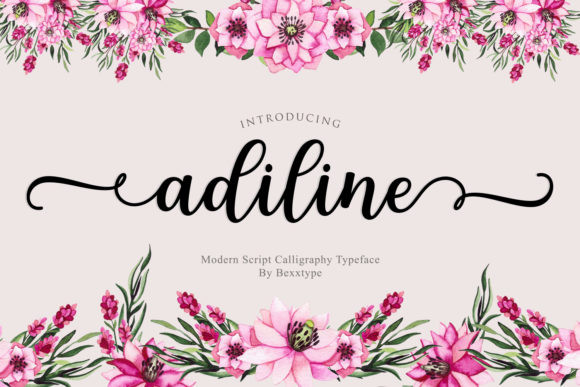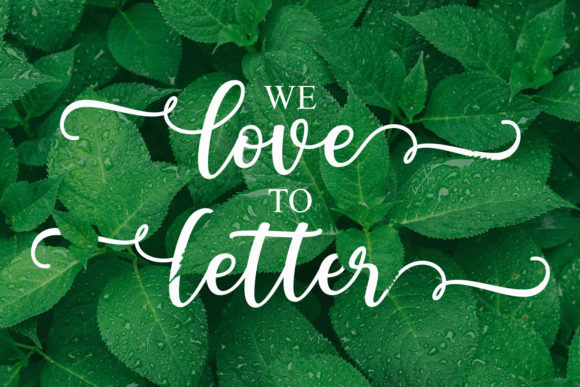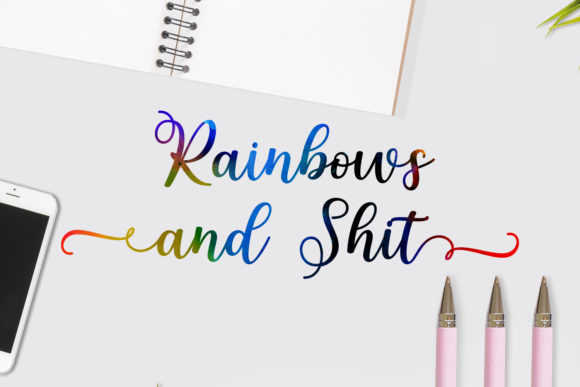
Adiline Font
Adiline is an incredibly cute and unique script font that will turn any design idea into a piece of art. Fall in love with its unique, authentic charm!